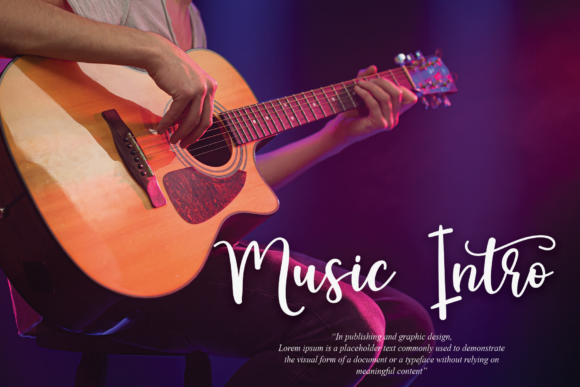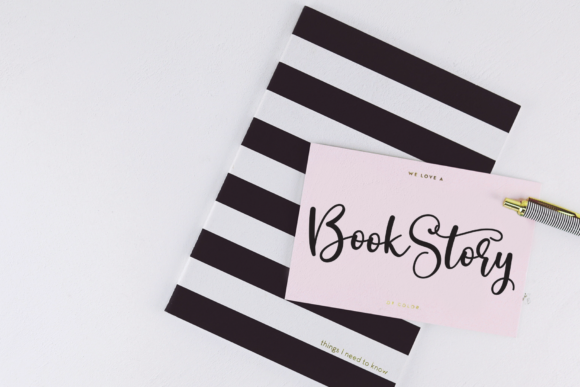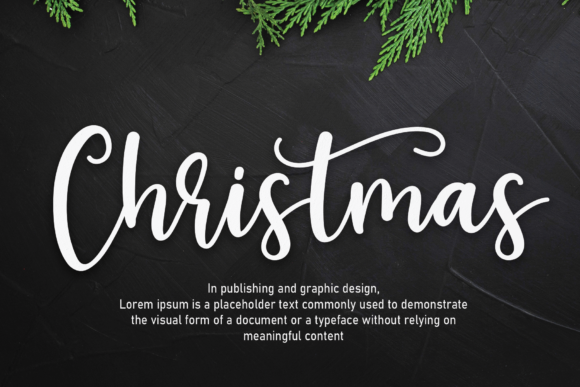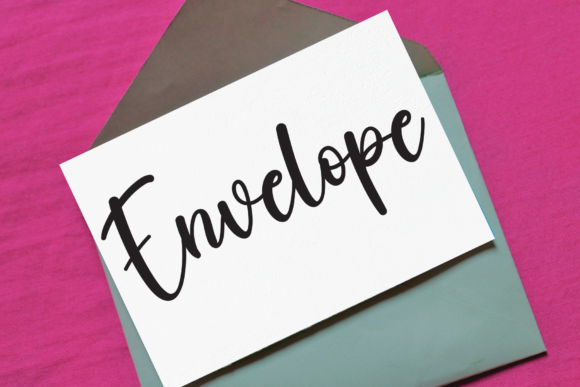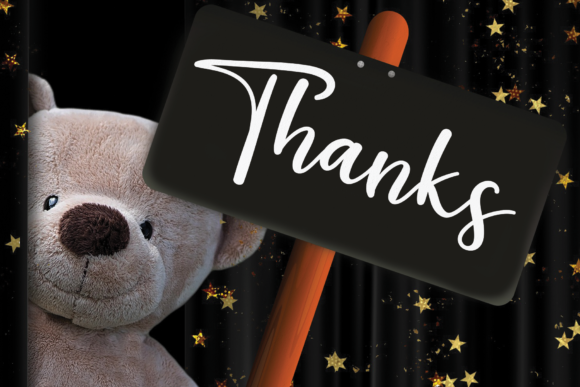
Introducing Background Font: Elevate Your Designs with a Bold and Natural Handwritten Style
Are you tired of using the same old fonts in your designs? Look no further! Background Font is a game-changing, bold, and natural handwritten font that can take any creation to the highest level. With its unique typography, this font is perfect for designers and crafters who want to add a personal touch to their work.
What is Background Font?
Background Font is a carefully crafted handwritten font that exudes a sense of elegance and sophistication. Its bold and natural style makes it perfect for a wide range of applications, from wall displays and wedding invitations to social media post logos, advertisements, product packaging, and more.
The versatility of Background Font is one of its most significant advantages. You can use it for:
- Wall displays and posters
- Wedding invitations and ceremony cards
- Social media post logos and graphics
- Advertisements and marketing materials
- Product packaging and designs
- Labels and branding
- Photography and watermarks
- Invitations and stationery
- Any project that requires unique typography
Why Choose Background Font?
So, what sets Background Font apart from other fonts? Here are just a few reasons why designers and crafters love it:
- Unique and eye-catching: Background Font’s bold and natural style makes it stand out from the crowd, adding a touch of personality to any design.
- Versatile: With its wide range of applications, you can use Background Font for various projects, from digital to print.
- Elegant and sophisticated: This font exudes a sense of elegance and sophistication, making it perfect for high-end designs and luxury brands.
- Easy to read: Despite its bold style, Background Font is easy to read, making it perfect for body text and titles.
Tips for Using Background Font
To get the most out of Background Font, here are some tips to keep in mind:
- Experiment with colors: Background Font looks great in a variety of colors, so don’t be afraid to experiment and find the perfect hue for your design.
- Mix and match: Combine Background Font with other fonts to create a unique and visually appealing design.
- Pay attention to spacing: Make sure to adjust the spacing between letters and words to ensure your design looks balanced and harmonious.
- Use it for emphasis: Use Background Font to draw attention to specific parts of your design, such as headings or calls-to-action.
Background Font is a powerful tool for designers and crafters who want to take their work to the next level. With its bold and natural handwritten style, this font is perfect for a wide range of applications. Whether you’re creating wall displays, wedding invitations, or social media post logos, Background Font is sure to make your designs stand out. So why wait? Download Background Font today and start elevating your designs!
- Background Font is a bold and natural handwritten font.
- It’s perfect for a wide range of applications, from wall displays to social media post logos.
- The font is easy to read and exudes a sense of elegance and sophistication.
- Experiment with colors, mix and match with other fonts, and pay attention to spacing to get the most out of Background Font.